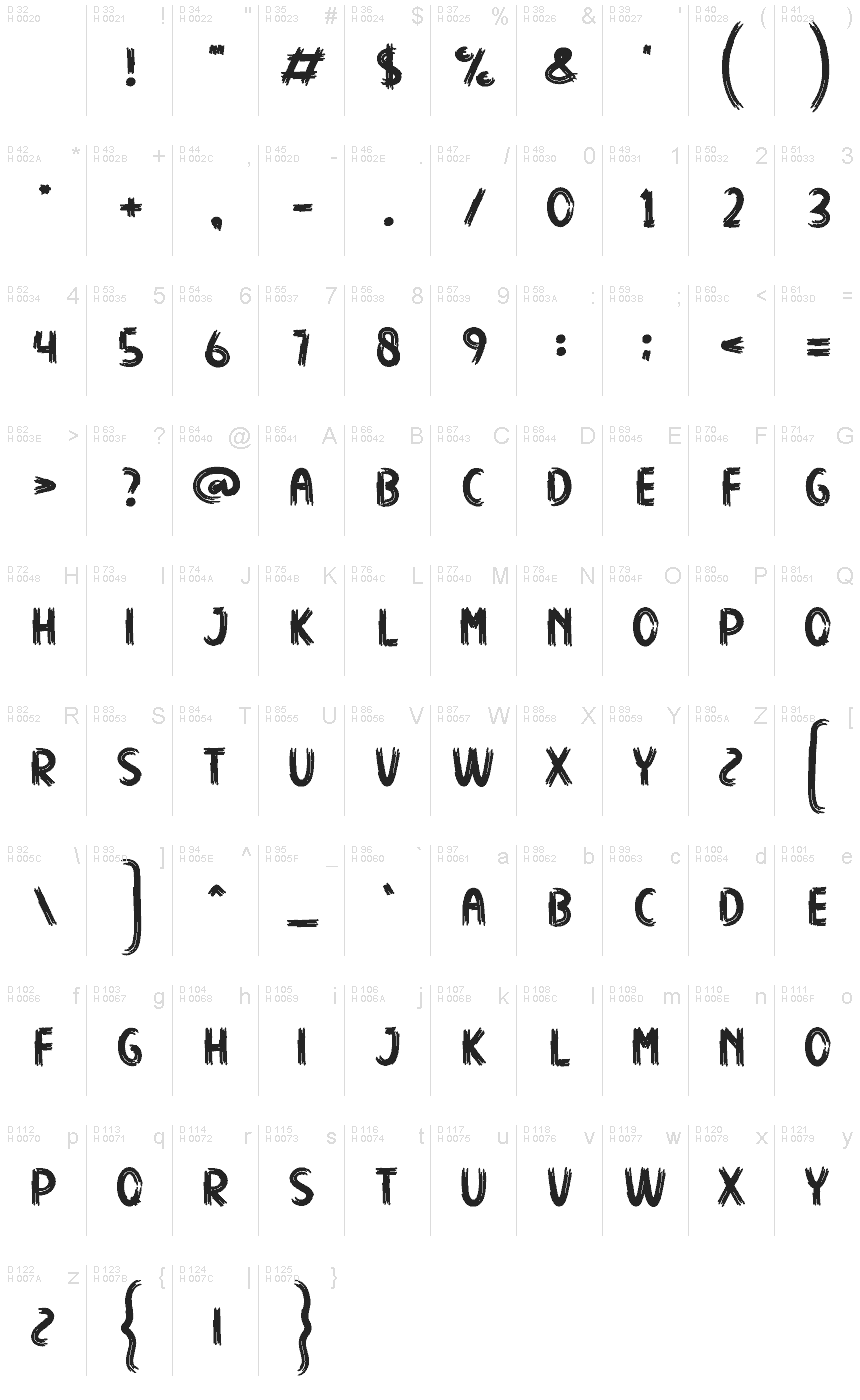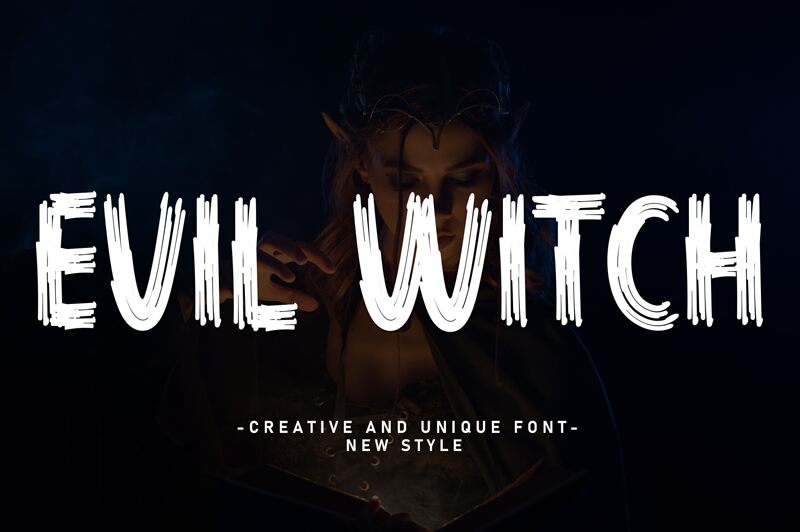
Evil Witch
Evil Witch font by Andi Moz is a massive bold display font with scary and wildly unsafe characters. With gothic influences, this grungy monstrous instrument for word design is guaranteed to leave horrifying impressions on the reader. Each character in the scary typeface exhibits gradually dispersed specks that add perfectly to hairy displays. A dirty texture covers all of the elements while shaping a true expression of fear.
This free display font is full of glitz and glamour, which are what a key title in your posters, magazine covers, booklets, and advertisements should be.